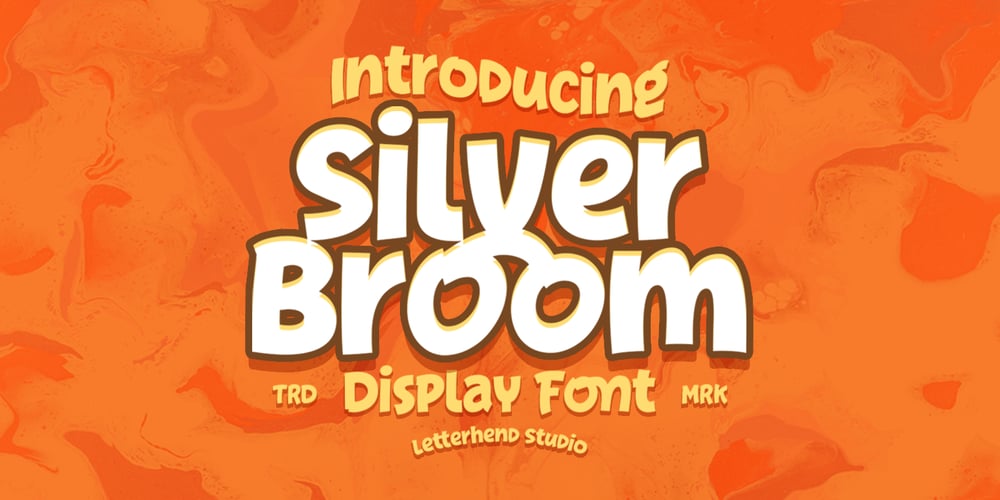
Silver Broom Font Family was designed by Hendry Juanda and published by Letterhend. Silver Broom contains 1 styles and family package options. Silver Broom is a display font with fun and playful looks. This type of font perfectly made to be applied especially in storybook children or child theme which is need a standout font, and the other various formal forms such as invitations, labels, logos, magazines, books, greeting / wedding cards, packaging, fashion, make up, stationery, novels, labels or any type of advertising purpose.Features : uppercase and lowercase numbers and punctuation multilingual swashes feature ligatures PUA encoded We highly recommend using a program that supports OpenType features and Glyphs panels like many of Adobe apps and Corel Draw, so you can see and access all Glyph variations.